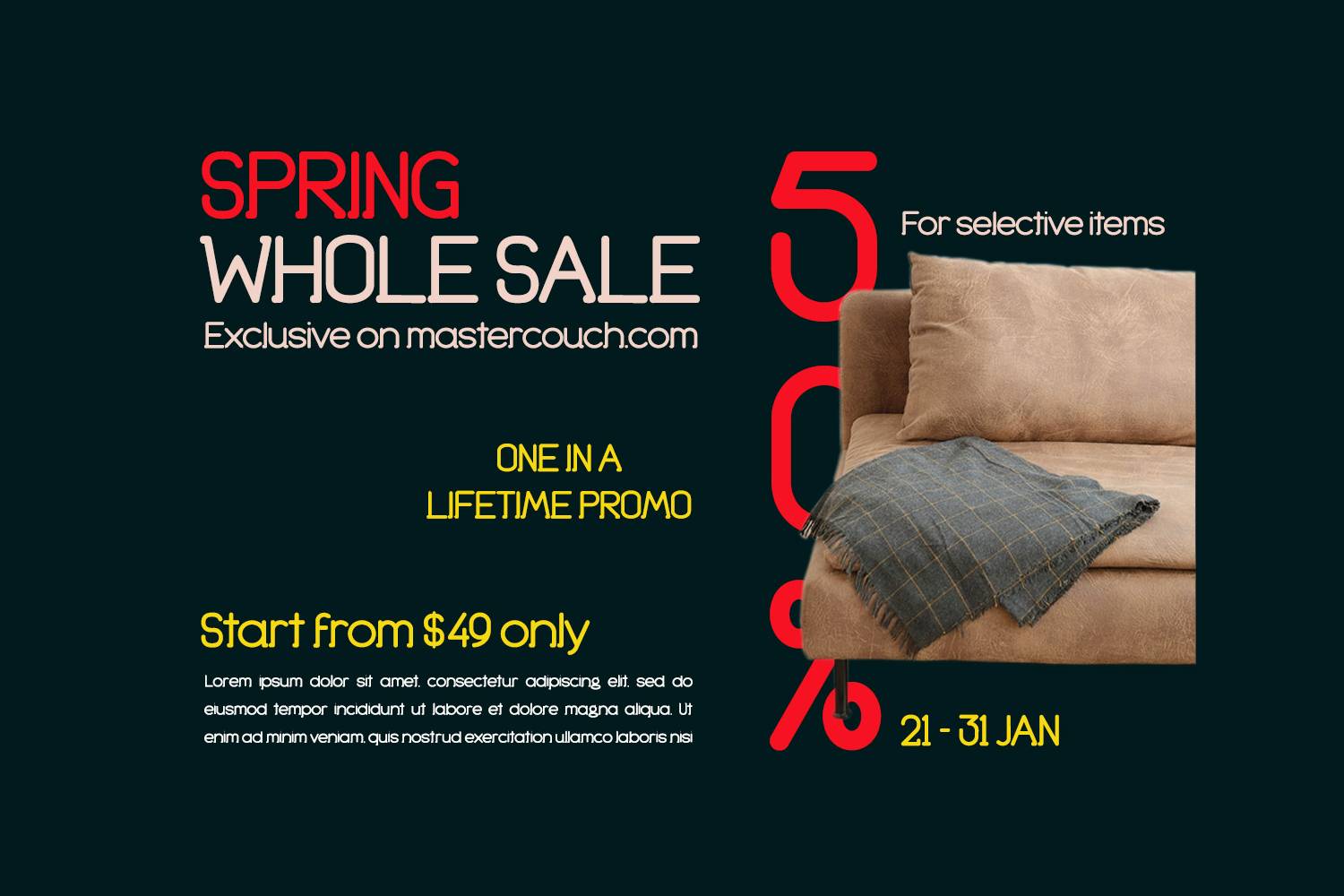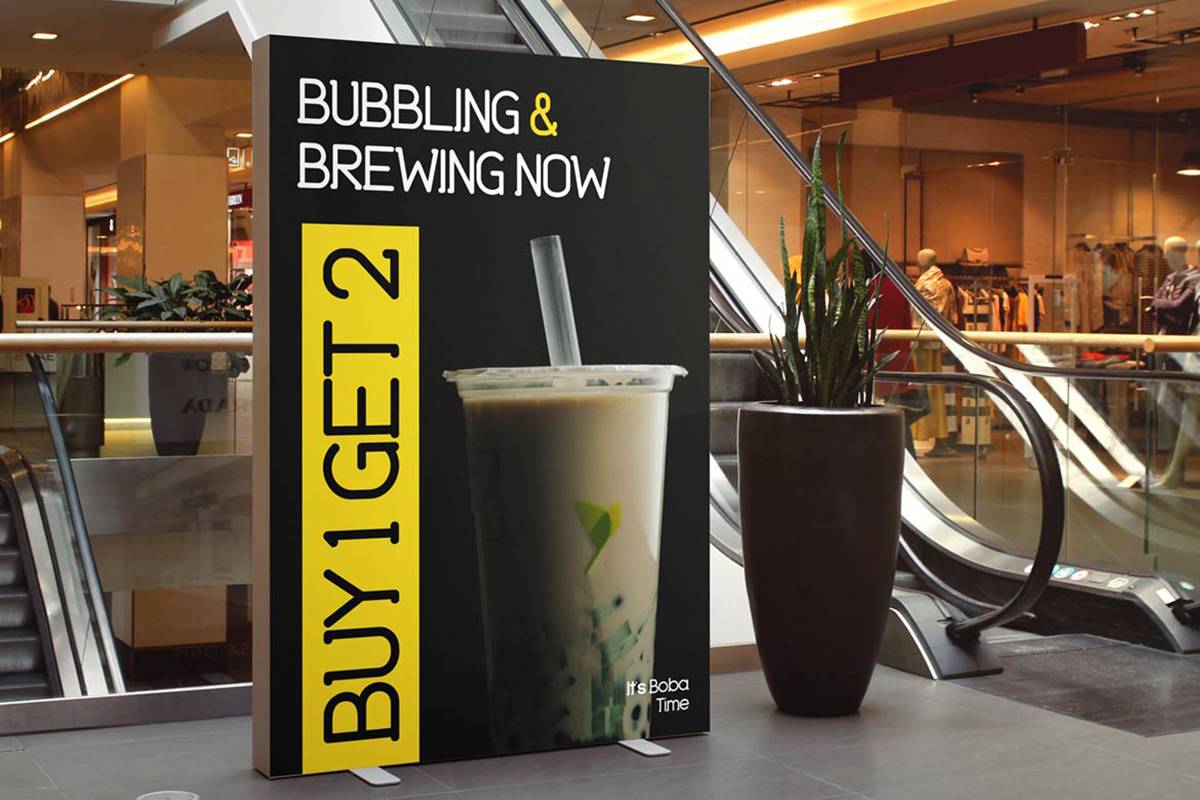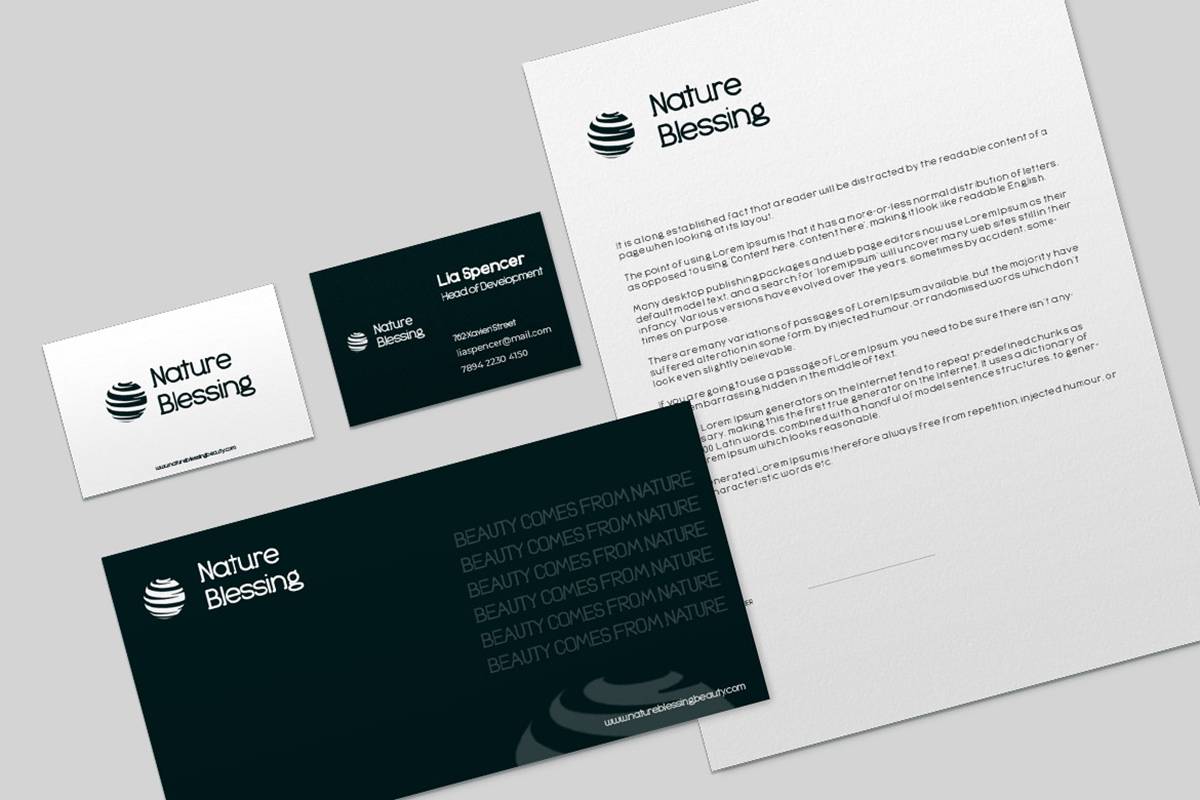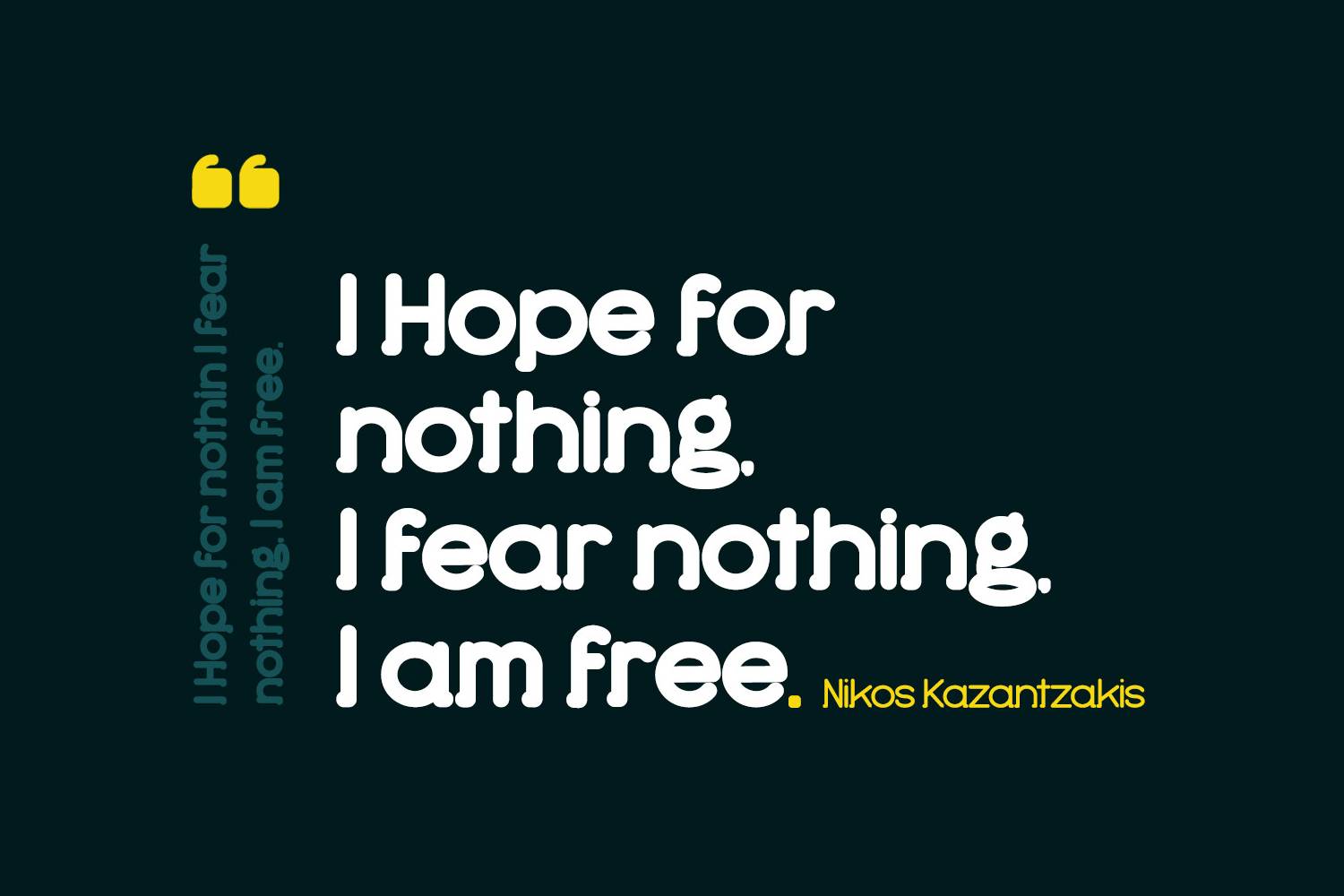
Haigo is a modern sans serif font characterized by its clean, rounded letterforms and consistent stroke weight, creating a friendly yet structured appearance. Its medium x-height and slightly condensed width make it highly legible while maintaining a distinctive geometric style with unique details like the single-story g and stylized Q tail. This font works well for branding, editorial headlines, and web use where a contemporary, approachable, and professional tone is desired.
Haigo Font
About Haigo Font